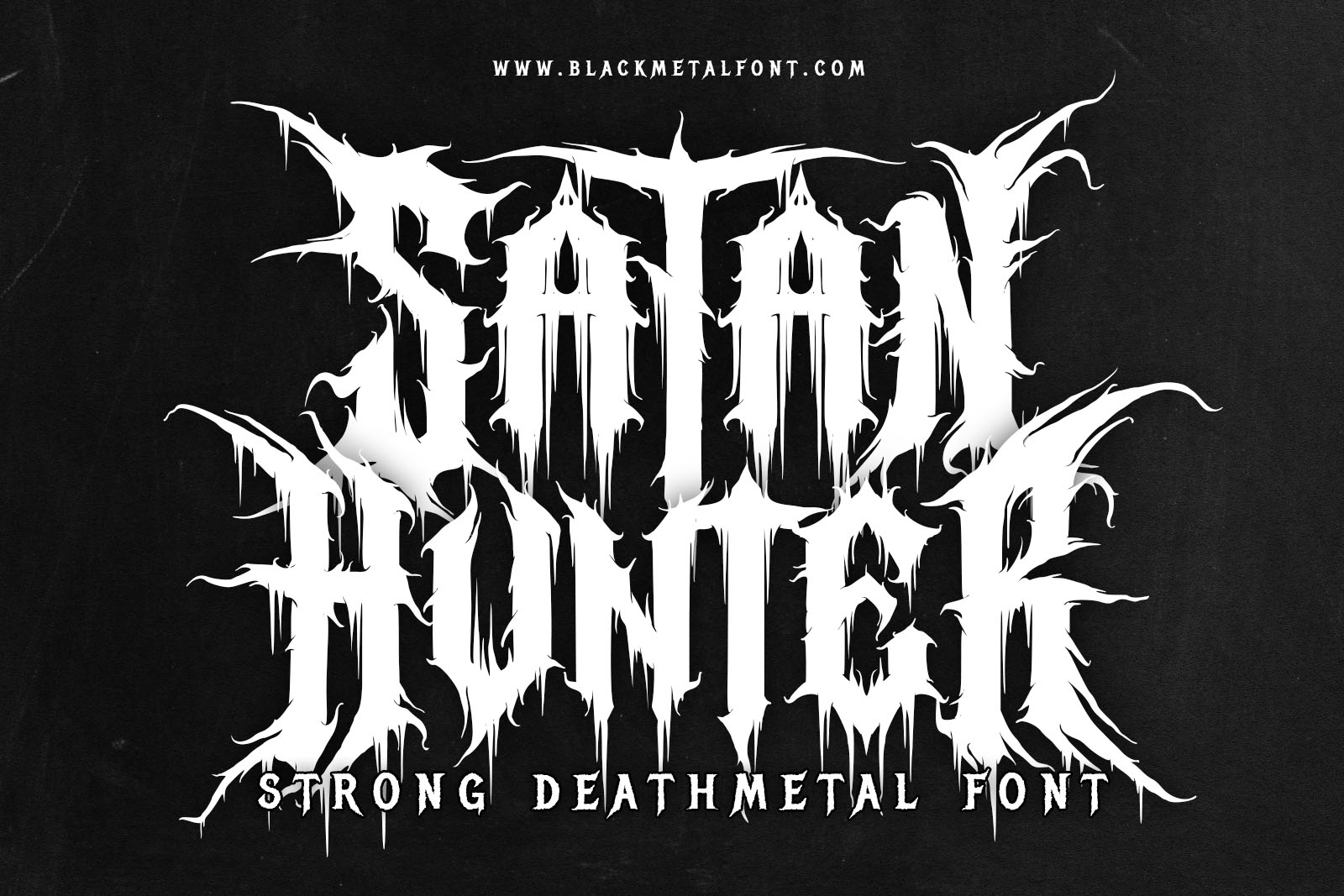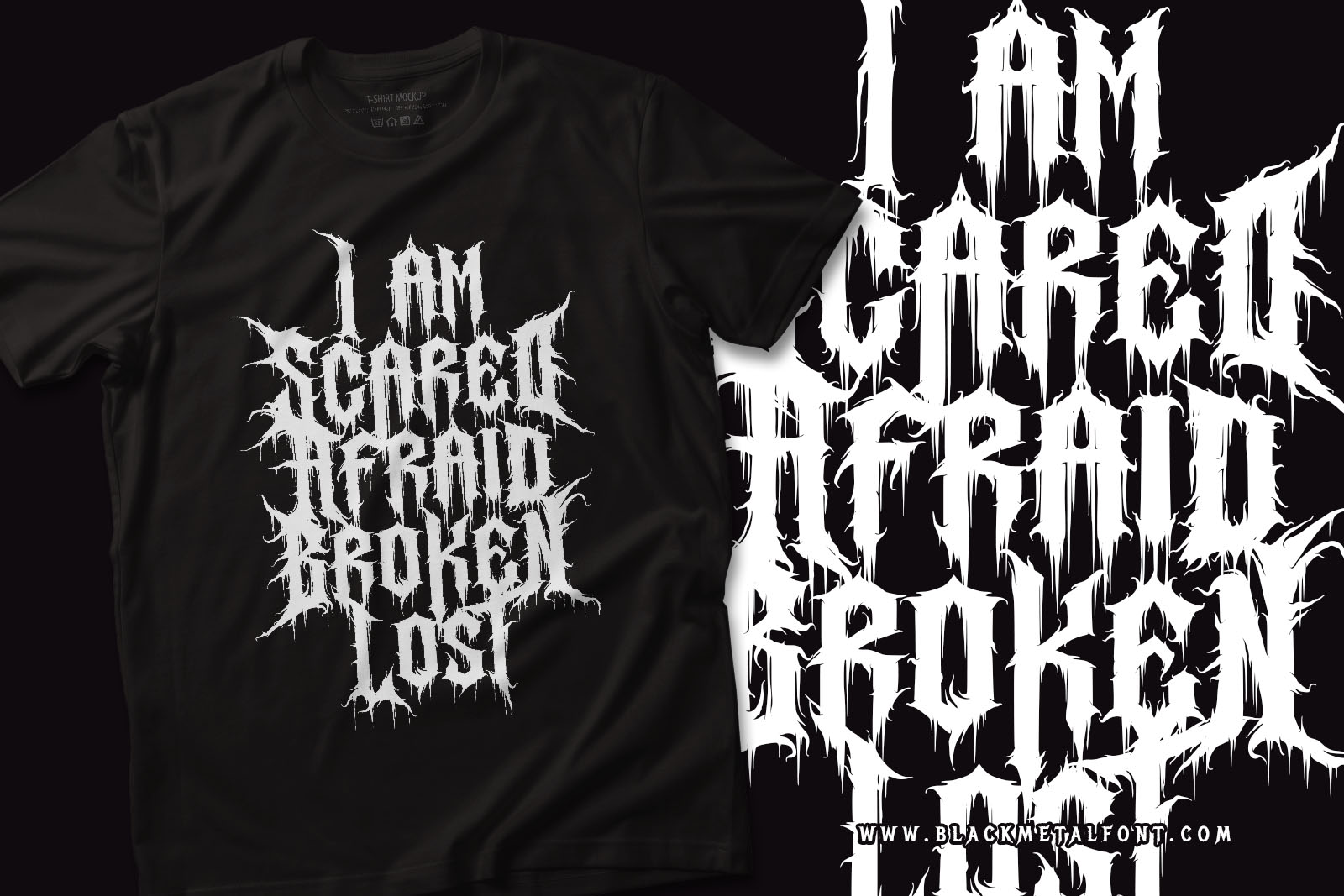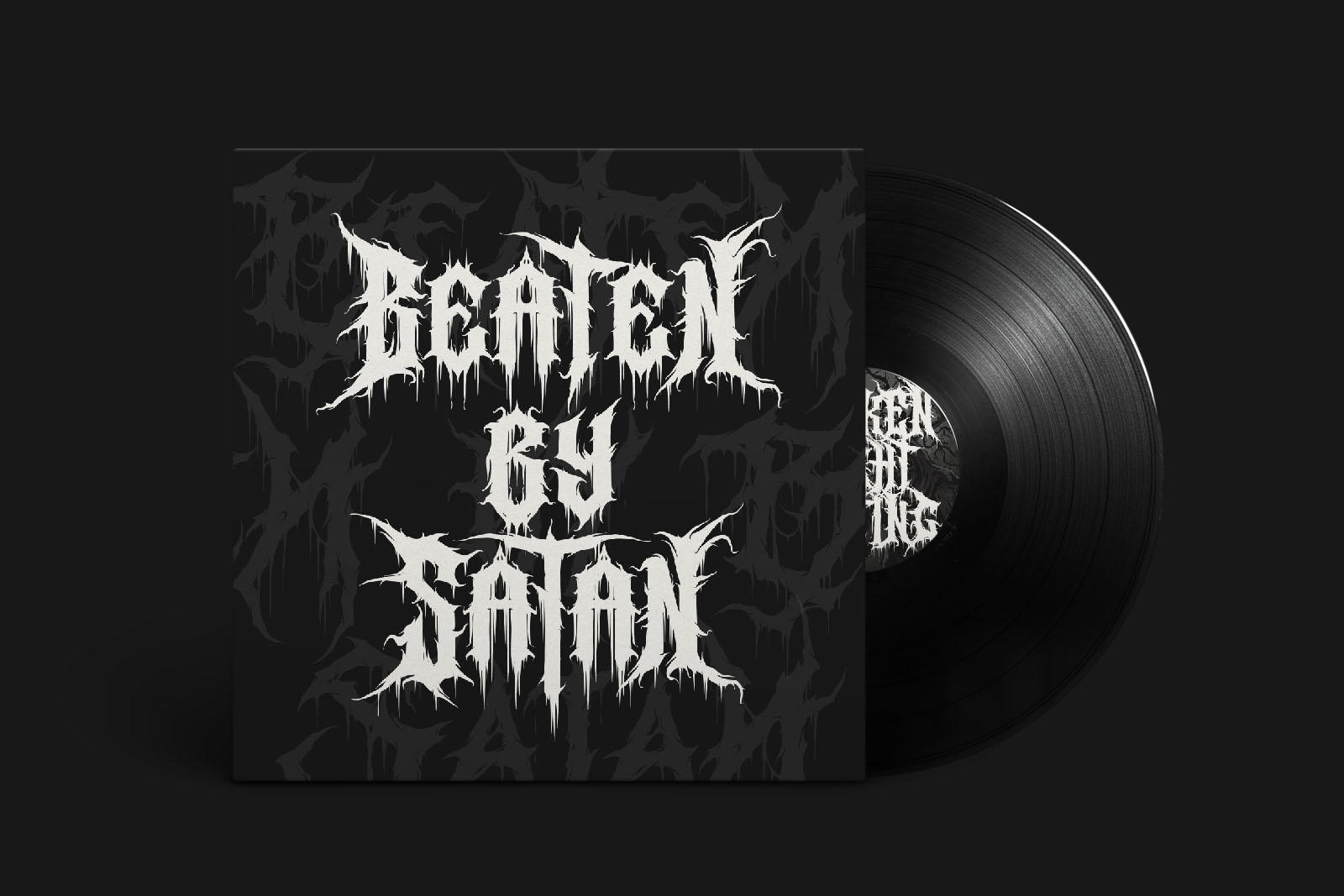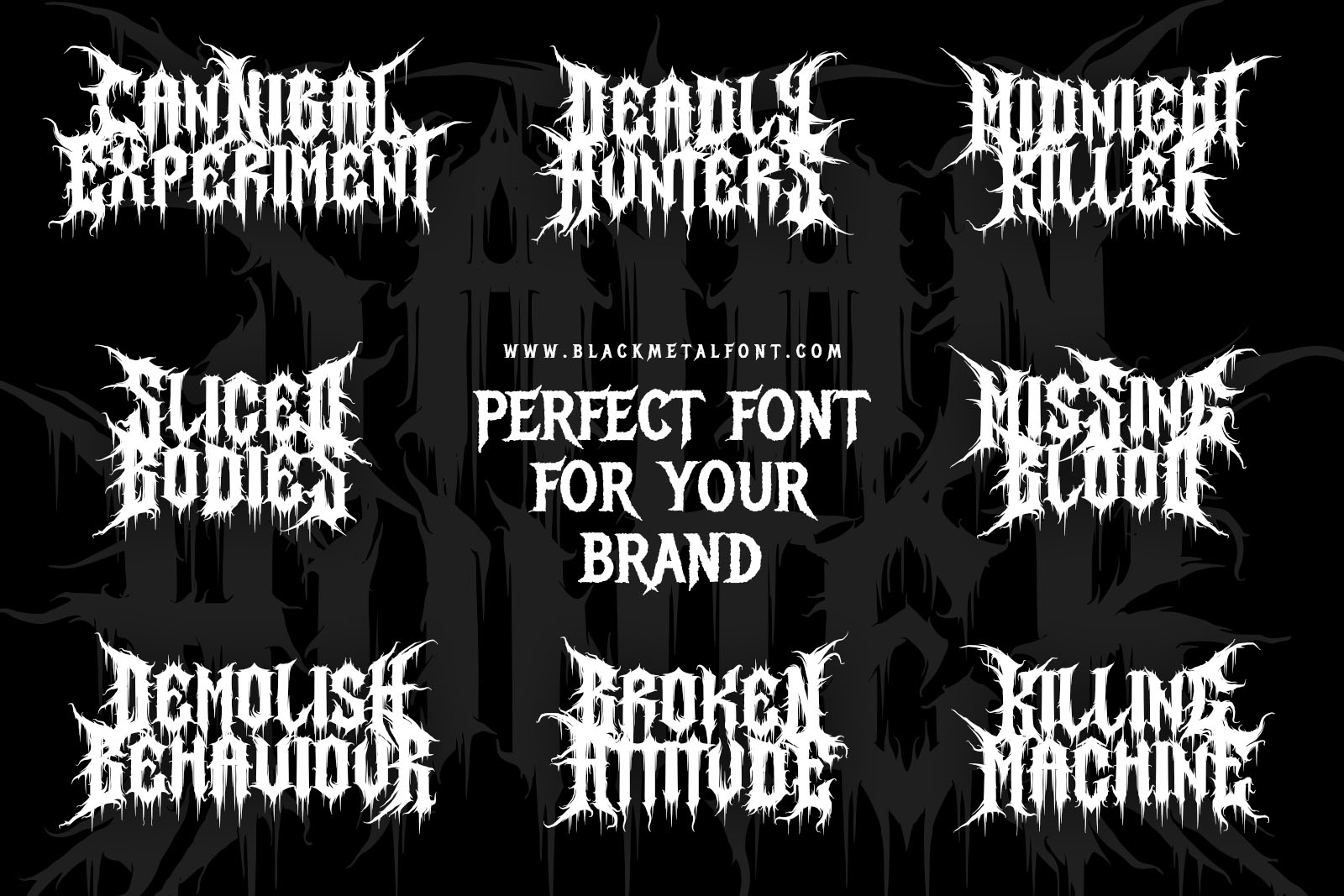
Satan Hunter
Satan Hunter is awesome black metal font. Comes with Uppercase and lowercase characters, and Uppercase alternates. This font is best seller font in black metal fans. Satan Hunter is awesome for your logo, your band, for merchandise, for clothing, and for your band concert